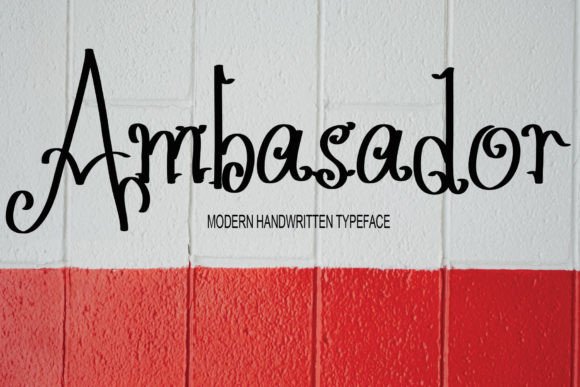
The Quest for the Perfect Font: Discovering Ambasador
I still remember the design project that led me to Ambasador. I was working on a wedding invitation suite, and my client was adamant about using a handwritten font that exuded elegance and simplicity. I scoured the internet, tried countless fonts, but nothing seemed to fit the bill. That was until I stumbled upon Ambasador. This beautiful, hand-crafted font has since become a staple in my design toolkit, and I’m excited to share its story with you.
An Honest Review of Ambasador
- ✨ Simple yet stylish: Ambasador’s understated elegance makes it perfect for a wide range of design projects.
- ✅ Carefully crafted: The font’s creator has put thought into every detail, resulting in a clean and polished look.
- 💻 Versatile: From websites to wedding invitations, business cards to advertisements, Ambasador fits right in.
While Ambasador is an excellent font, it’s not without its quirks. For instance:
- ⚠️ Limited glyphs: As a handwritten font, Ambasador might not have all the special characters or glyphs you need for specific projects.
- 🤔 Not ideal for body text: Due to its elegant, cursive nature, Ambasador works best as a display font or for short paragraphs.
- Explore OpenType features, such as stylistic alternates or glyphs, to add more personality to your text.
Ambasador supports OpenType features, which allow you to access additional glyphs and stylistic alternates. To access these features:
The Story Behind Ambasador
Ambasador was created by a talented font designer who wanted to craft a simple yet stylish handwritten font. Using a tablet, they carefully wrote each character, resulting in a font that’s both elegant and approachable. The designer’s goal was to create a font that would be versatile enough for various design projects, from digital media to print materials.
| Author | Canden Meutuah |
Q: Is Ambasador suitable for body text?
A: While Ambasador is an excellent font, it’s best suited for display text or short paragraphs. Its elegant, cursive nature makes it less ideal for long-form reading.
Q: Does Ambasador support OpenType features?
A: Yes, Ambasador supports OpenType features, including stylistic alternates and glyphs. This allows you to add more personality and variety to your text.